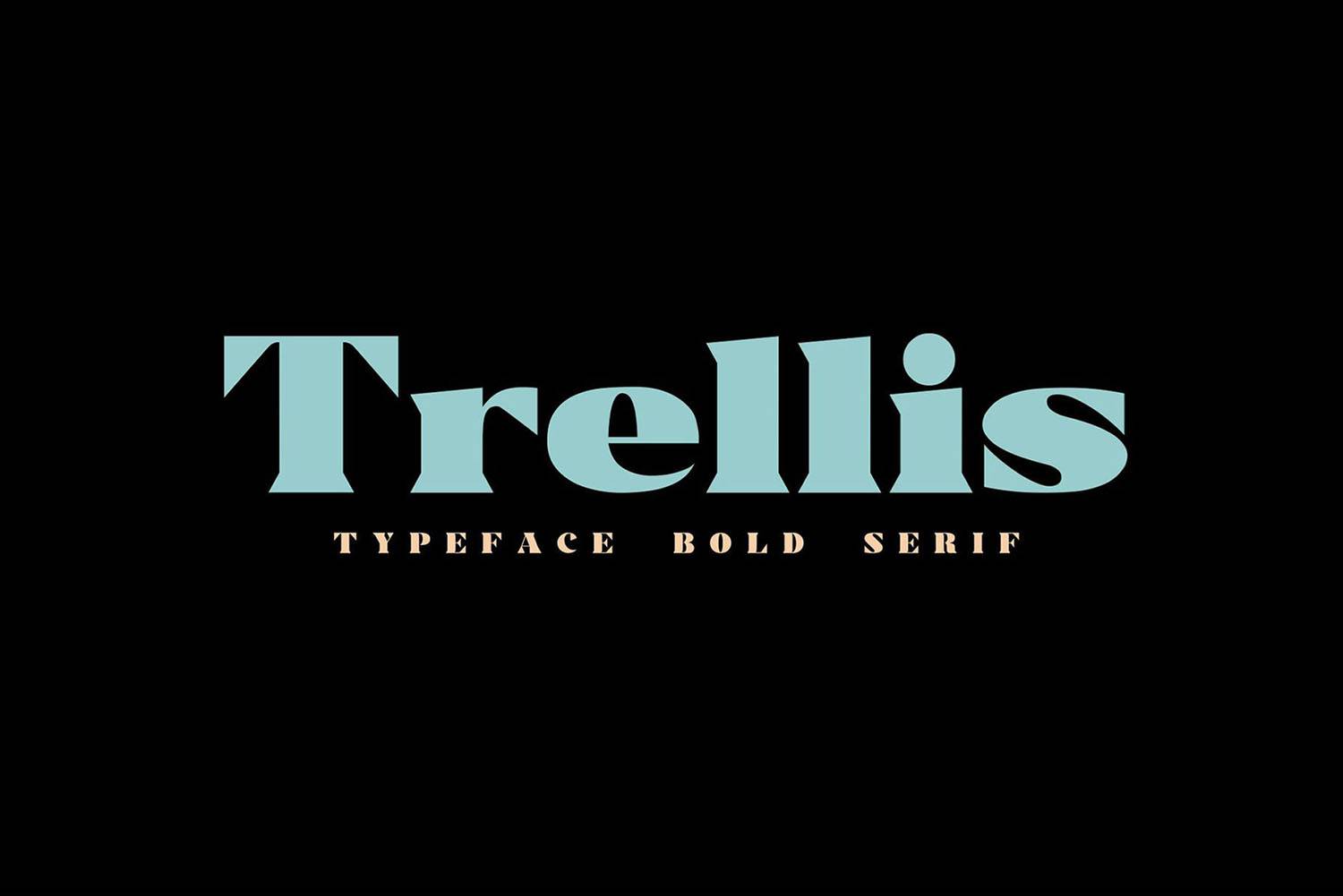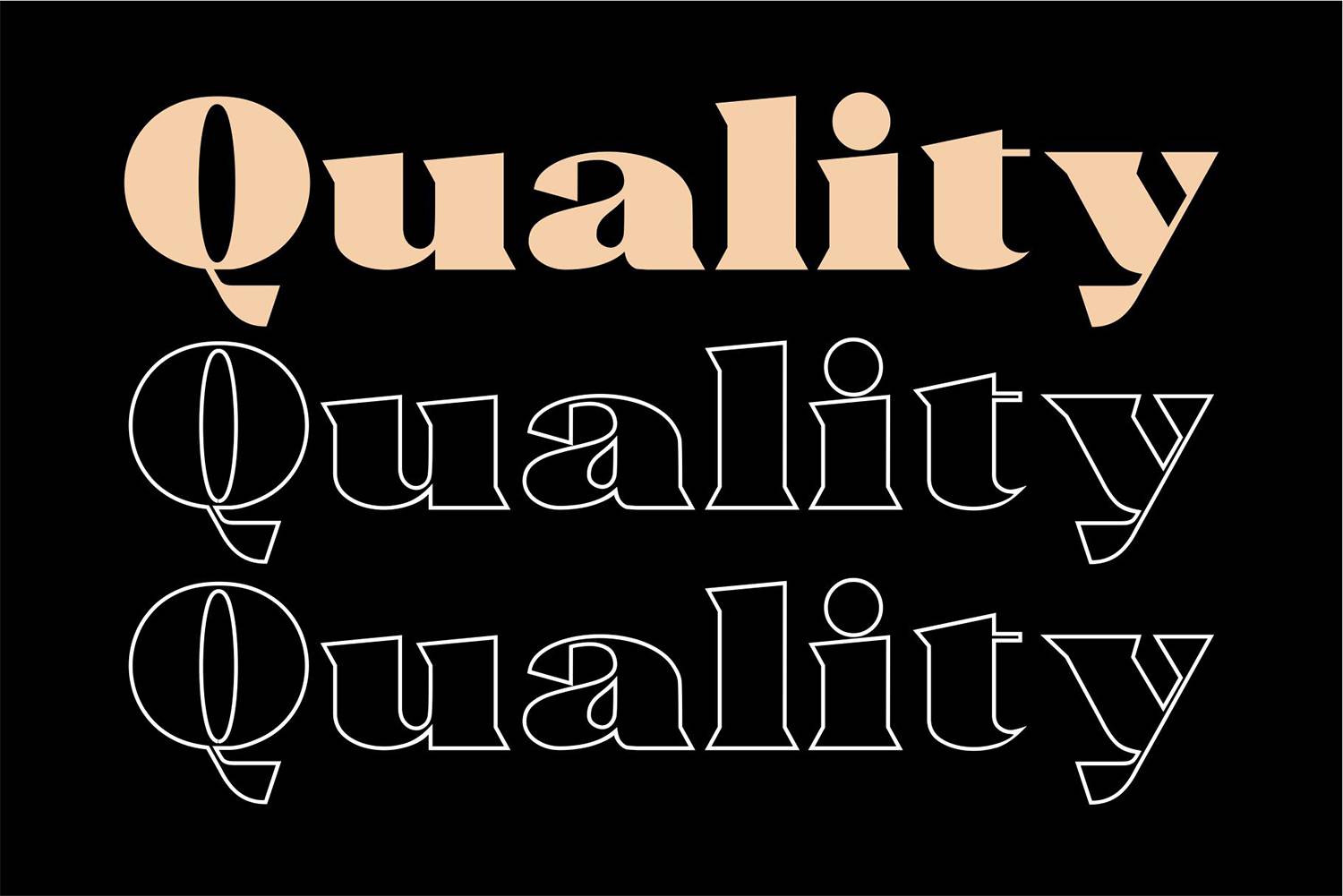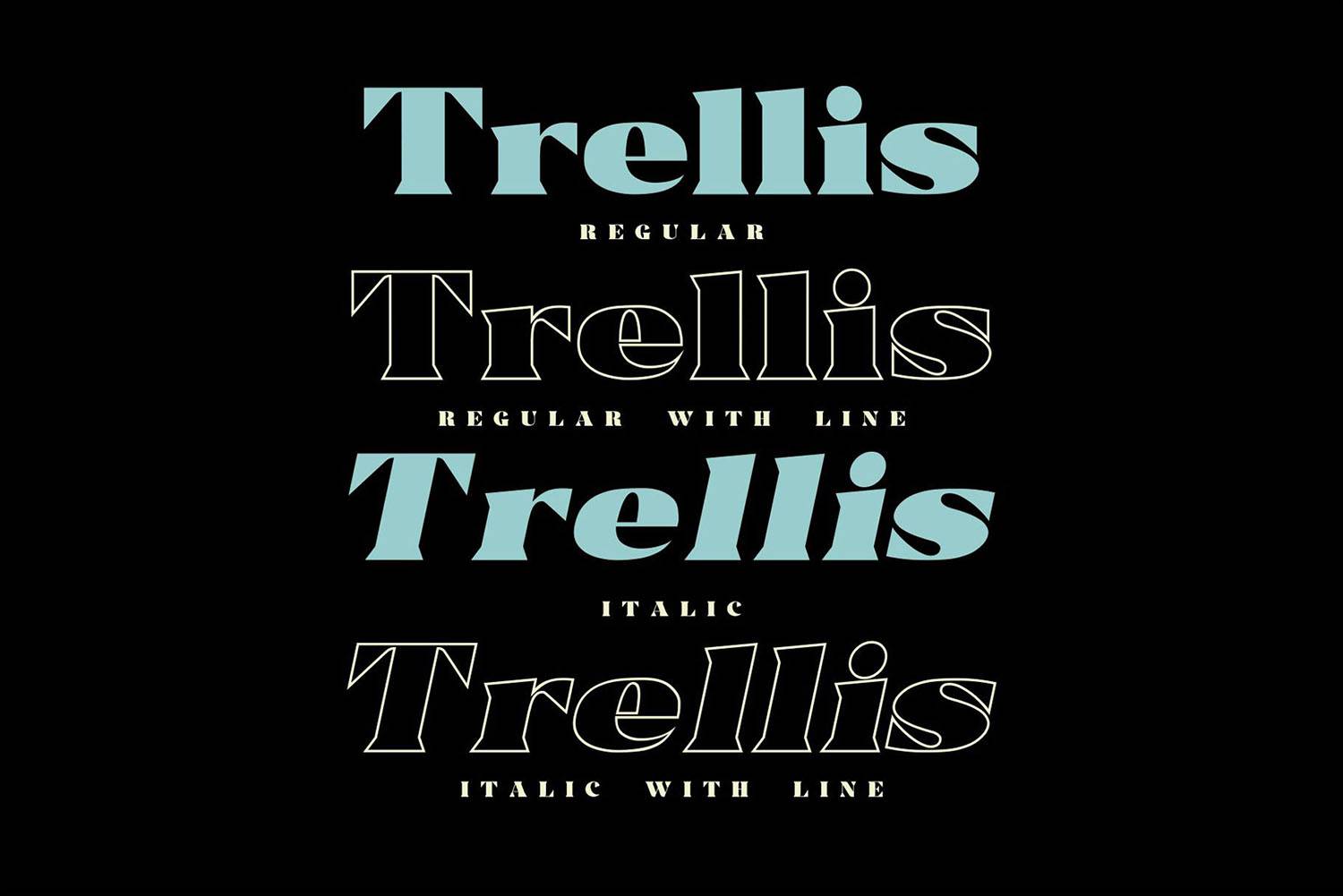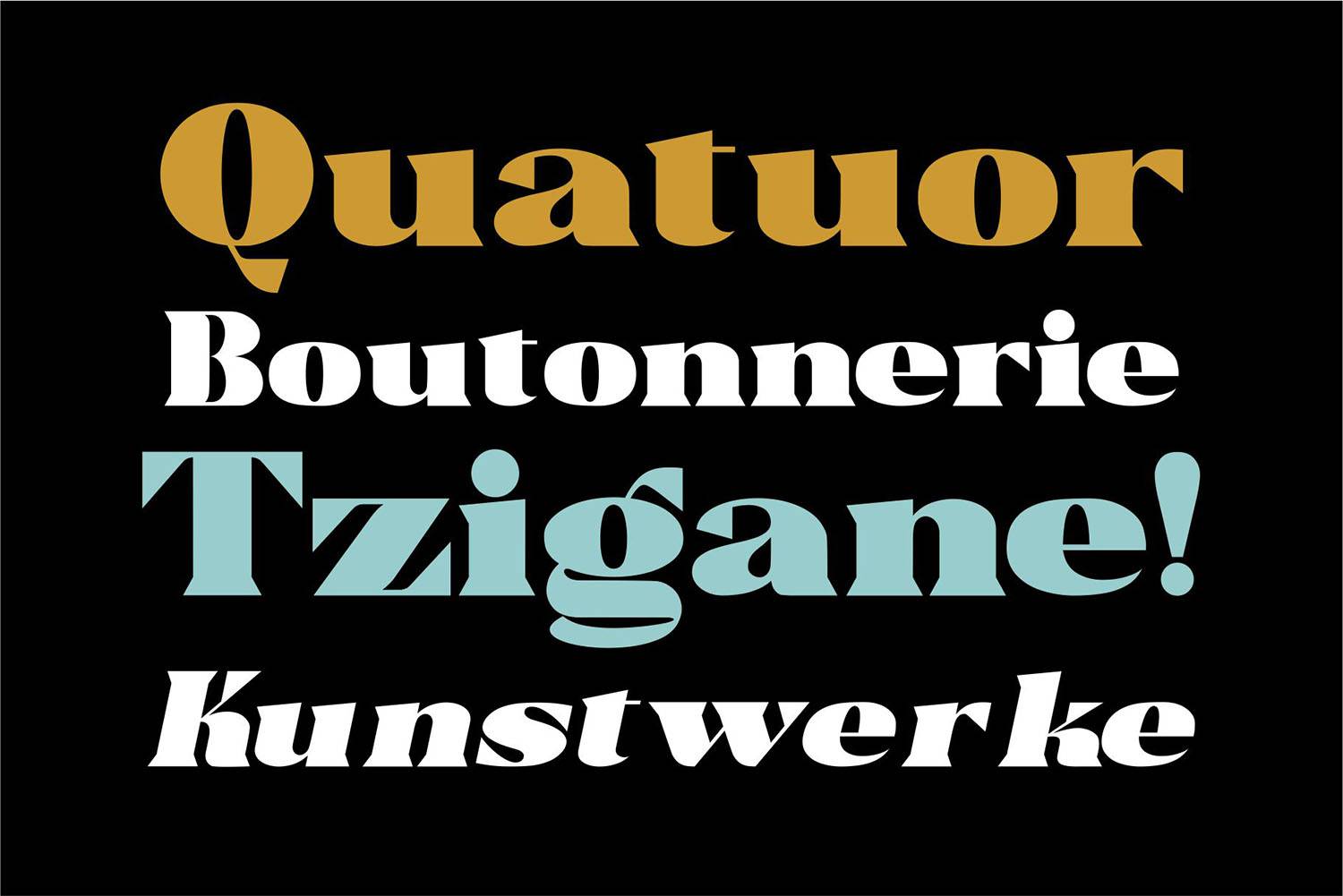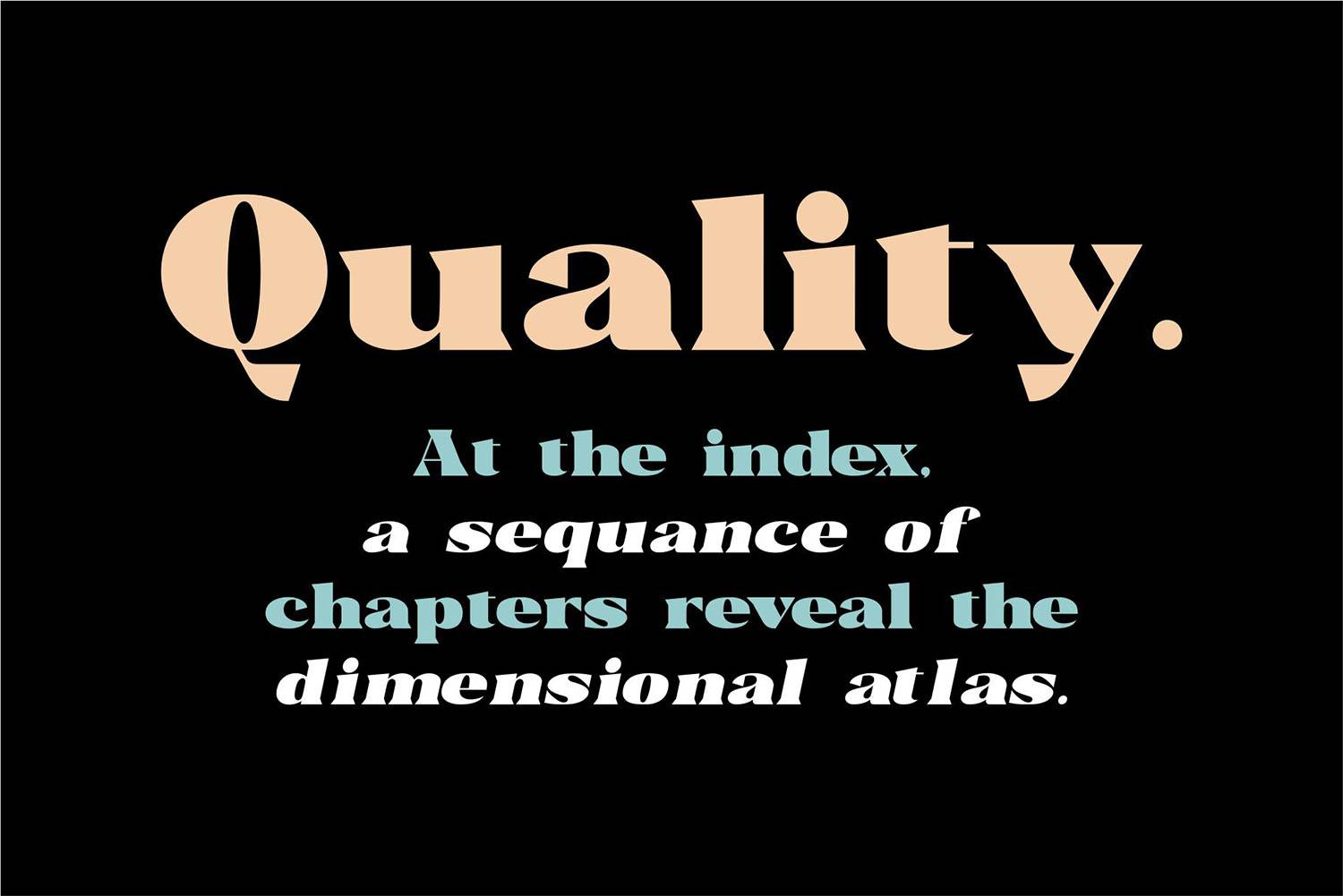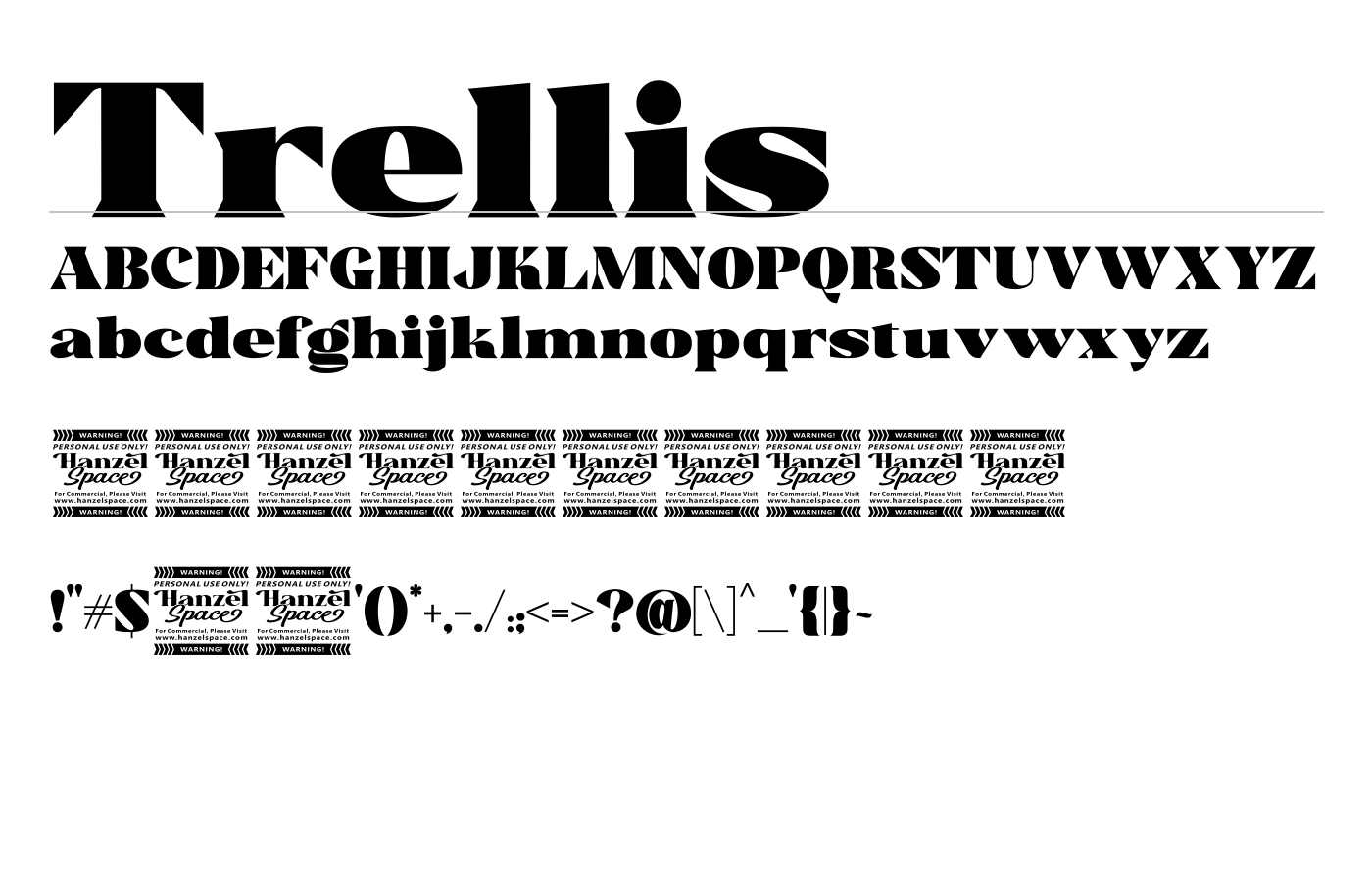
Trellis is a bold serif font with a dramatic contrast between thick and thin strokes, featuring sharp, geometric serifs that give it a modern yet classic feel. Its strong presence and distinctive letterforms make it ideal for eye-catching headlines, luxury branding, and editorial design where a powerful, elegant statement is needed. This font works best in large sizes to showcase its unique personality and striking style.
Trellis Font
About Trellis Font
| Designer | Hanief Farandi |